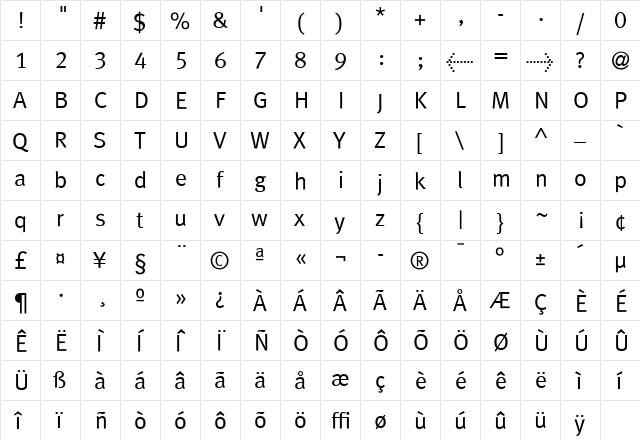
MetaPlusLining Regular
Design Context for MetaPlusLining Typeface
MetaPlusLining takes a measured approach to typography — its balanced proportions and neutral character make it a reliable workhorse for both digital and print work.
Pro Tip: Use MetaPlusLining in both headline and body roles to test its range before committing to a single application.